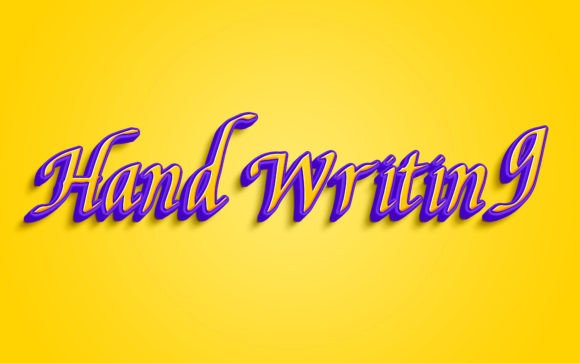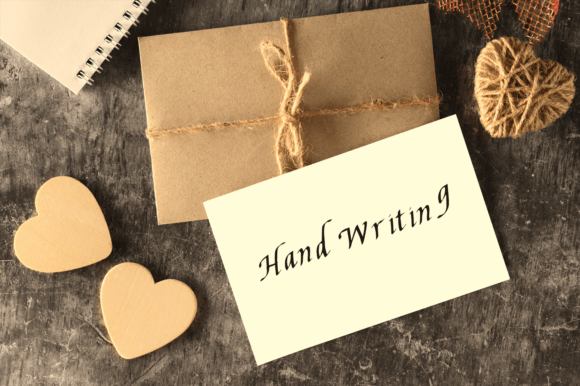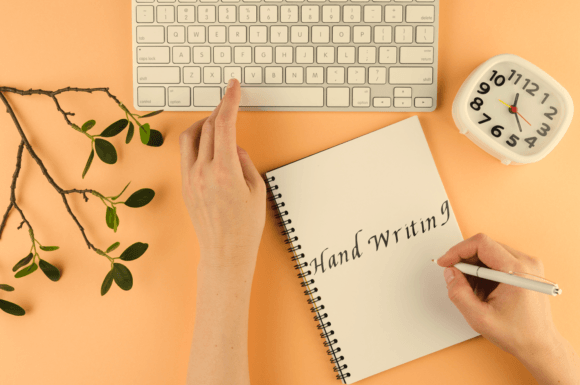
Handwriting Font
About Handwriting Font
“Handwriting” is a fun and casual handwritten font that adds a relaxed and playful vibe to your design projects. When you incorporate this font into your projects, you can do so with confidence, knowing that it will bring about results that you’ll love.
The charm of “Handwriting” lies in its ability to infuse your projects with a sense of informality and friendliness through its handwritten characters. Its design exudes a lighthearted and approachable aesthetic, making it an excellent addition to a variety of creative endeavors.
Whether you’re working on casual branding, crafting posters with a playful twist, designing cheerful social media graphics, creating personalized notes or messages, or any project that requires a fun and informal touch, “Handwriting” is the typeface that can bring your ideas to life.
In the world of design, creating an impression of approachability and fun is essential for certain projects, and “Handwriting” excels in this regard. It ensures that your projects not only look visually appealing but also convey a feeling of informality and friendliness, leaving an engaging and cheerful impact on your audience.
Embrace “Handwriting” with confidence and watch as it adds a touch of playfulness and informality to your creative endeavors, making them more approachable and enjoyable for your audience, and ultimately, resulting in outcomes that you’ll genuinely love.